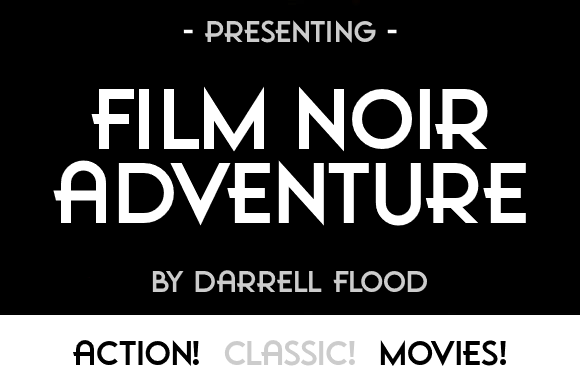
Revamp Your Brand with Film Noir Adventure
It was a rainy Tuesday when I decided to update the packaging for my small candle business. The labels had been the same for years, and while they were functional, they didn’t reflect the quality or personality of the products inside. That’s when I discovered Film Noir Adventure—a vintage sans serif font that felt like a secret weapon for bringing a timeless, stylish edge to my brand.
What makes Film Noir Adventure stand out is its old detective movie vibe. It has a crisp, clean look that feels both retro and modern. The sharp lines and subtle shadows give it a dramatic flair, perfect for creating a sense of mystery or elegance. Whether you’re designing a logo, labeling a product, or updating a social media post, this font adds a unique touch that commands attention without being overwhelming.
How Film Noir Adventure Elevates Business Materials
For my candle labels, I used Film Noir Adventure for the product names and key phrases. The font’s style made the labels feel more intentional, like they belonged in a high-end boutique rather than a cluttered shelf. It also helped create visual consistency across all my packaging, from the jar labels to the gift boxes.
Businesses in many industries can benefit from this font. A bakery might use it for box designs, a beauty brand for skincare labels, or a café for menu headers. Its versatility makes it ideal for headlines, short phrases, logos, and decorative accents. It works well on printed materials like business cards, stickers, and flyers, as well as digital assets such as website banners, social media graphics, and email templates.
One thing I learned early on is that Film Noir Adventure shines best in display text. It’s not the best choice for long paragraphs, but when used strategically, it can add character to titles, headings, and callout text. For example, I paired it with a clean sans serif font for my website’s navigation, which created a balanced look without sacrificing style.
Typography Matters for First Impressions
As a small business owner, I’ve come to realize how much typography affects how customers perceive a brand. A well-chosen font can make a business feel more professional, trustworthy, and memorable. Film Noir Adventure helps achieve that by adding a distinctive personality to every design.
Readability is also important, especially for small labels or mobile screens. While the font has a dramatic feel, it remains legible even at smaller sizes. I made sure to test it on product mockups and social media thumbnails to ensure it looked good in different formats. For printed packaging, I kept the text short and bold to maintain clarity.
Pairing Film Noir Adventure with Other Fonts
Font pairing is an essential part of any design project. Film Noir Adventure works well with other fonts that complement its style. For a more elegant look, I paired it with a classic serif font. For a modern twist, I used it alongside a sleek sans serif. If I wanted a handwritten feel, I added a script or handwritten font for accents.
The key is to balance the drama of Film Noir Adventure with fonts that provide contrast. This helps prevent the design from feeling too busy or overwhelming. I found that using it as a headline font and pairing it with simpler body text made the overall design more approachable and easy to read.
Considerations Before Using the Font
Before finalizing my design, I made sure to check the font’s features. Film Noir Adventure includes multiple weights, ligatures, and alternates, which gave me more flexibility in how I used it. I also verified that it supports multilingual characters, which was important for my international customers.
Overall, Film Noir Adventure has become a go-to font for my brand. It adds a level of sophistication and style that aligns with the values of my business. Whether I’m updating a label, creating a new marketing graphic, or designing a menu, this font helps me tell a more compelling story through typography.
For any small business owner looking to elevate their brand visuals, I highly recommend exploring Film Noir Adventure. It’s a powerful tool that can transform everyday designs into something truly memorable.